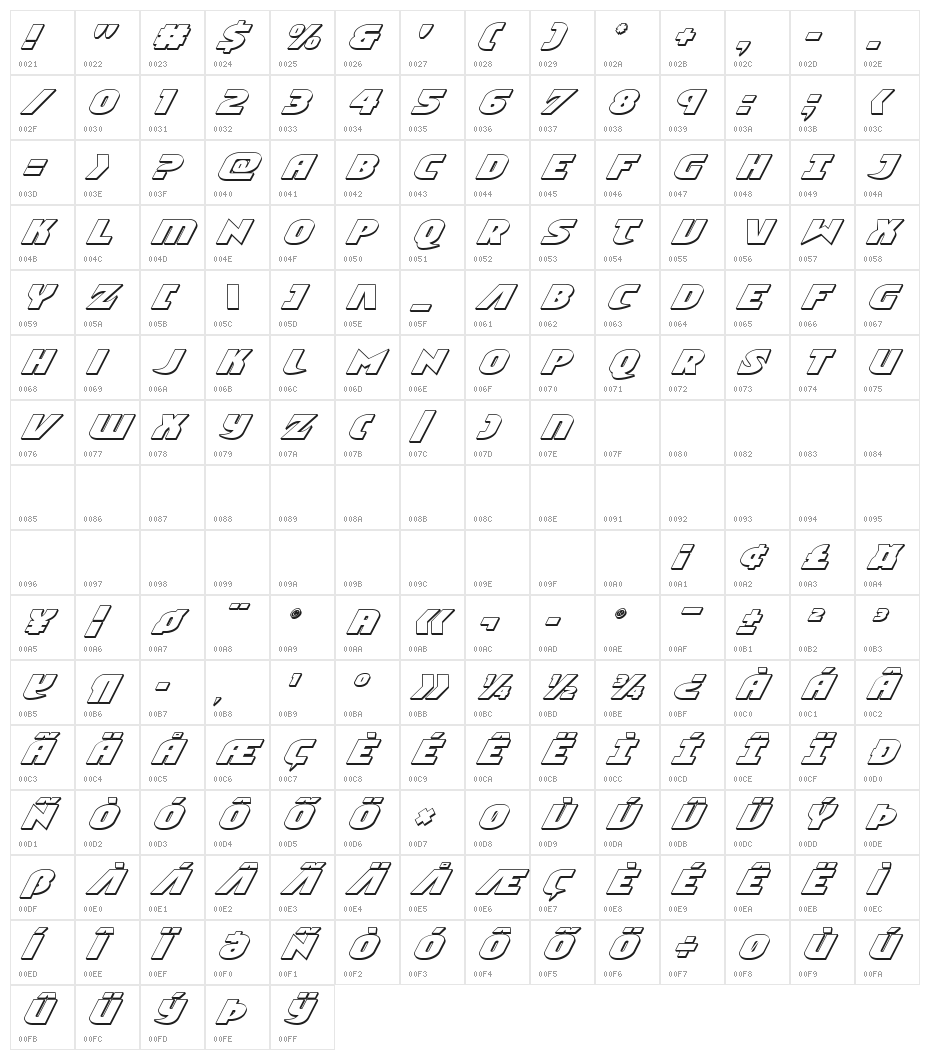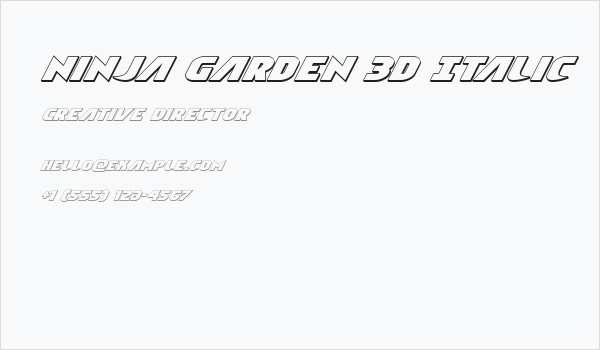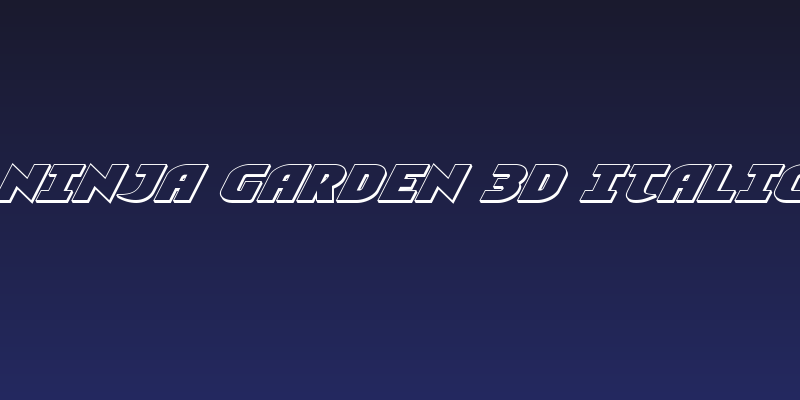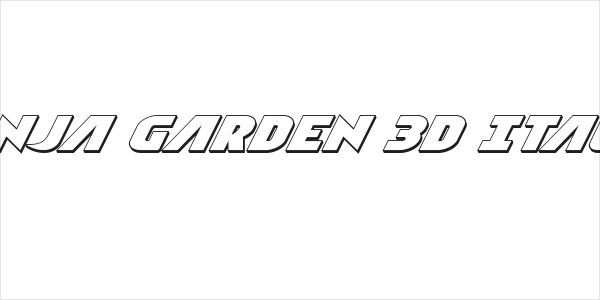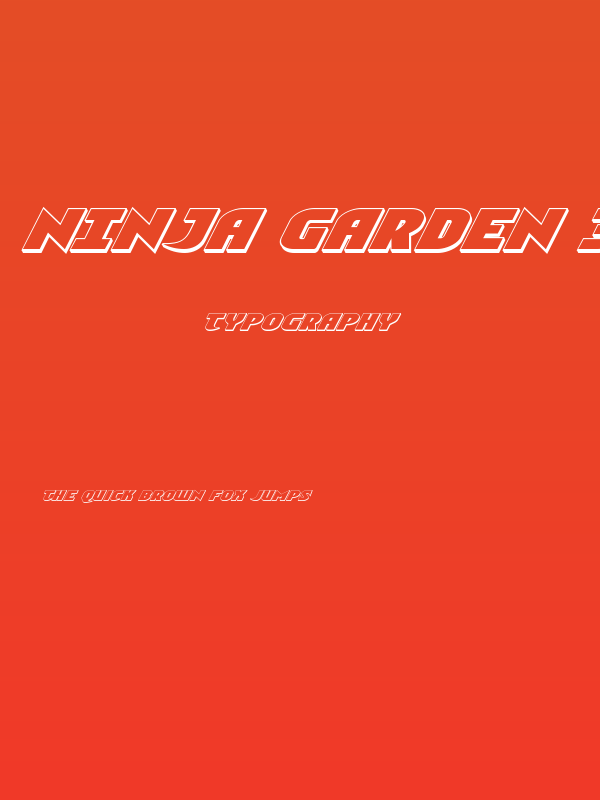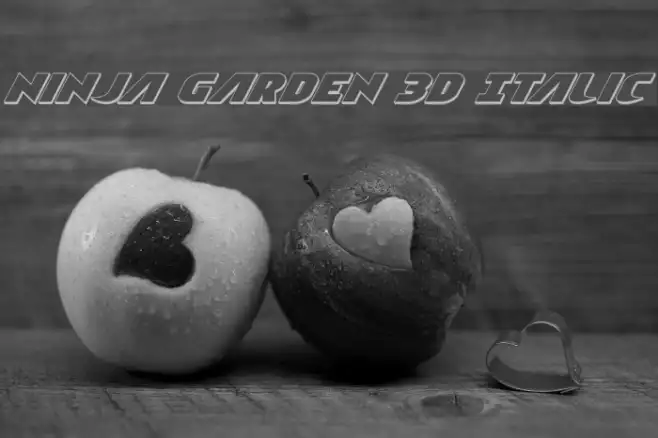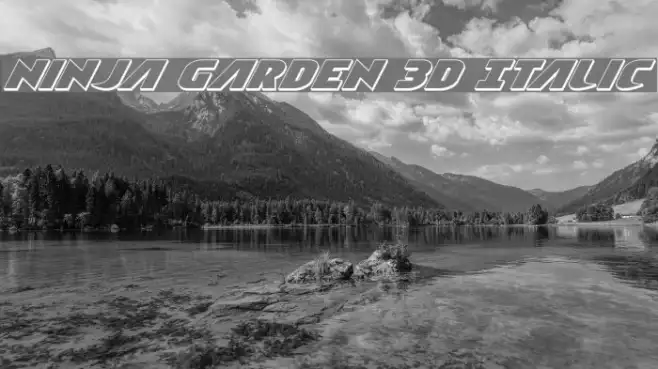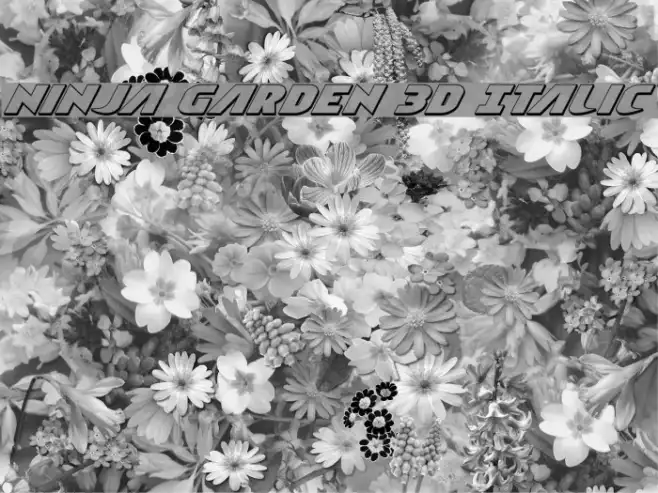
Ninja Garden 3D Italic Font
Ninja Garden 3D Italic Description
This font features a bold, three-dimensional style with a strong italic slant, giving it a dynamic and energetic appearance. The characters are outlined, adding depth and a sense of movement. The uppercase and lowercase letters maintain a consistent style, with sharp angles and clean lines that enhance its modern look. The numerals and special characters are designed to match the bold and italicized theme, making them stand out effectively. This font is ideal for projects that require a striking and impactful visual presence.
NINJA-GARDEN-3D-ITALIC UPPERCASE
NINJA-GARDEN-3D-ITALIC LOWERCASE
NINJA-GARDEN-3D-ITALIC OTHER CHARS
| Proposed Projects | Ideal for video game titles, sports branding, action movie posters, and dynamic advertising campaigns. |